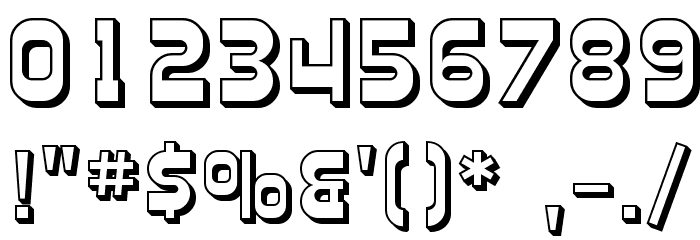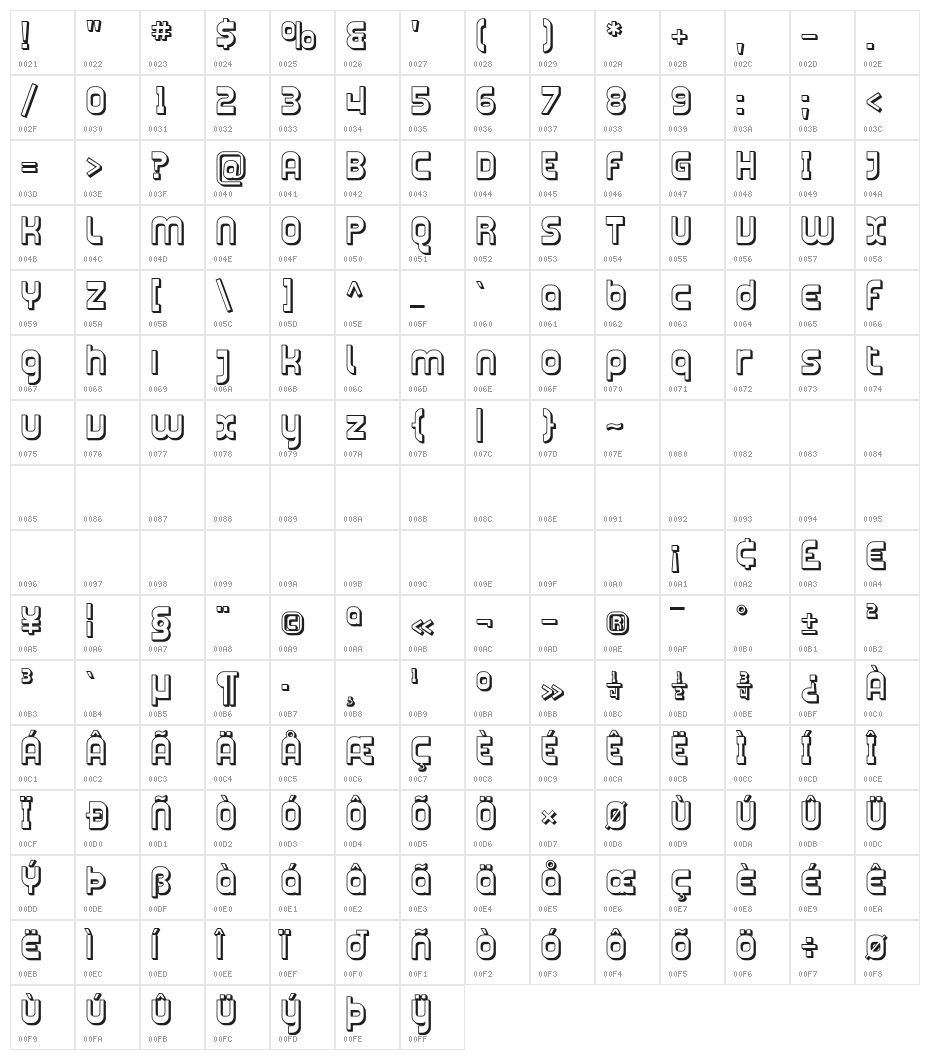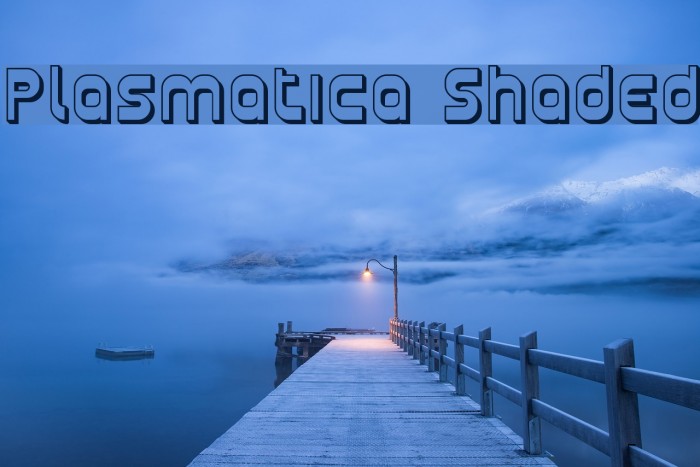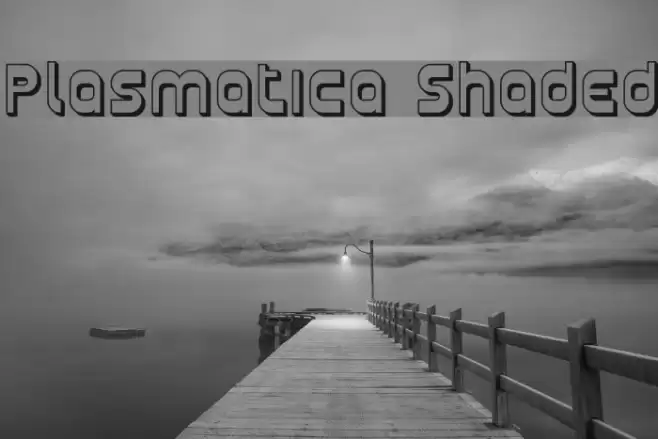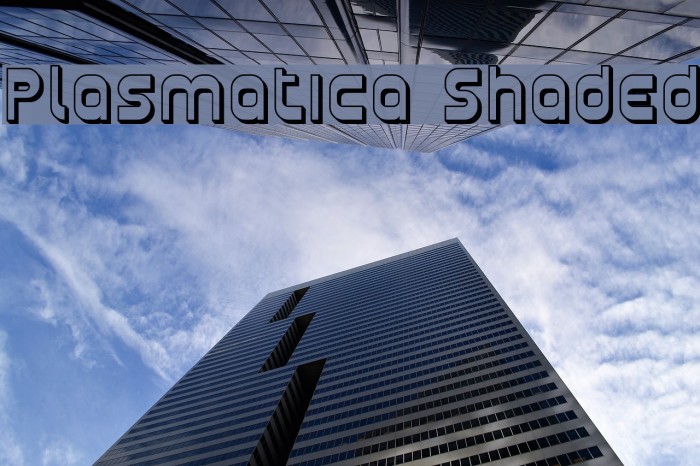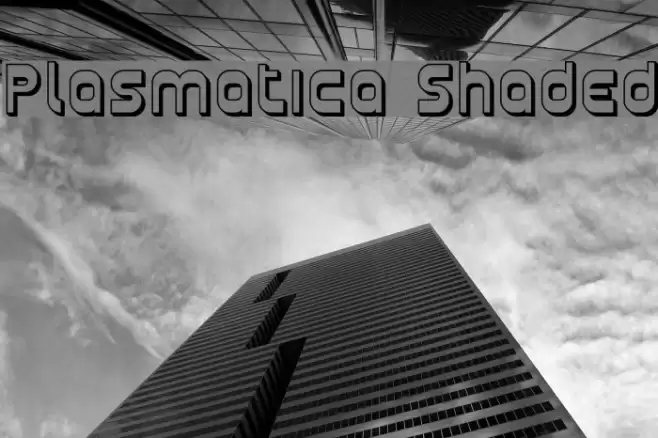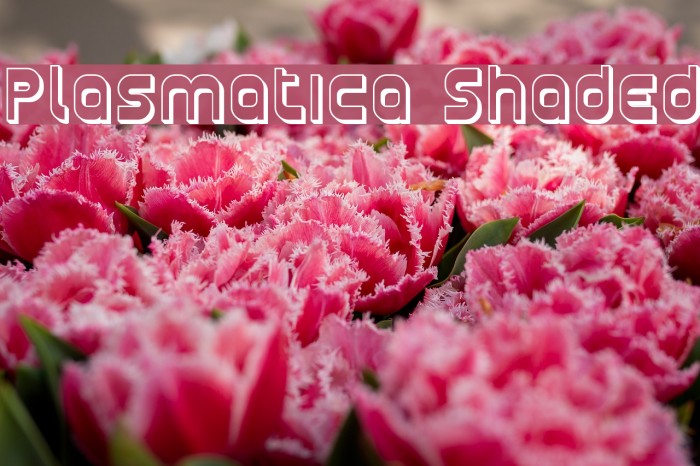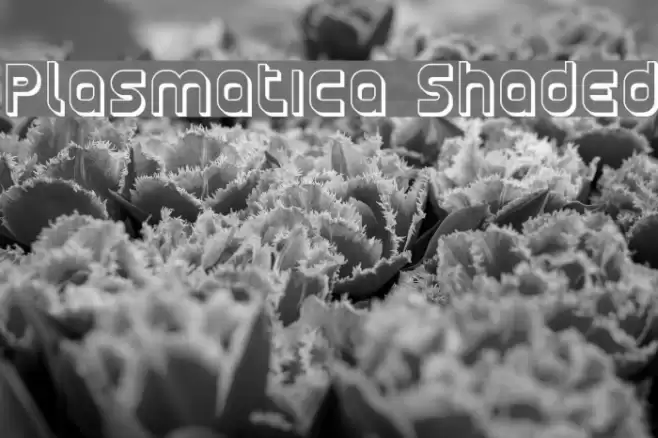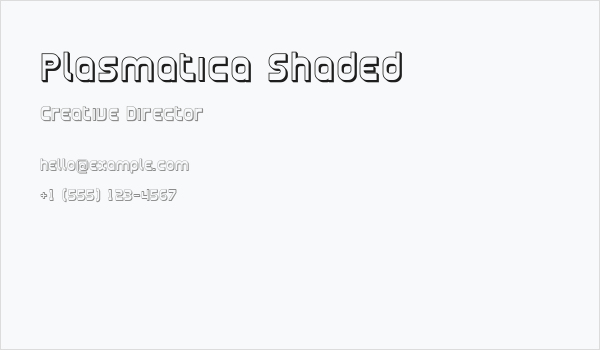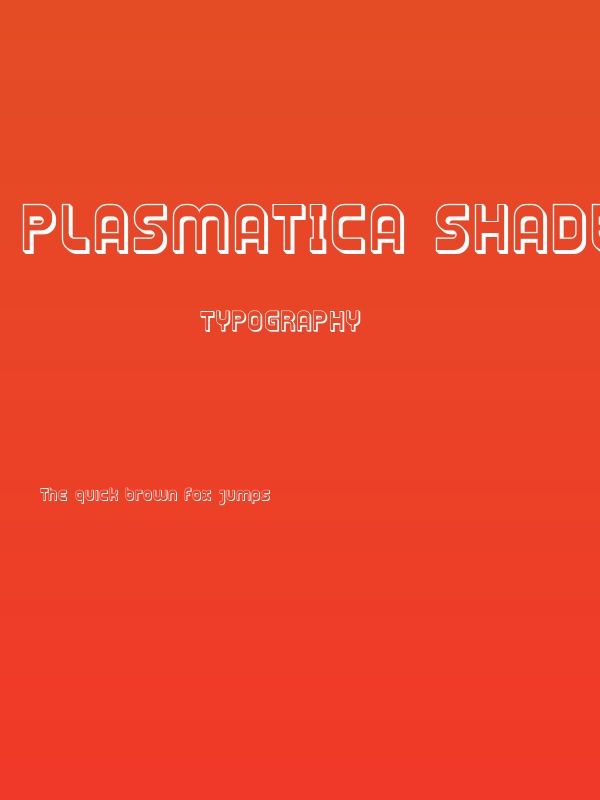
Plasmatica Shaded Font
Plasmatica Shaded Description
This font features a bold, geometric design with a distinct three-dimensional effect created by its shaded outline. The characters are structured with clean, straight lines and rounded edges, giving it a futuristic and tech-inspired appearance. The uppercase and lowercase letters maintain a consistent style, with uniform stroke widths that enhance its readability. The numerals and special characters are designed to match the overall aesthetic, providing a cohesive look across all glyphs. This font is ideal for projects that require a modern and dynamic visual impact.
| Proposed Projects | Ideal for tech branding, video game titles, futuristic posters, and digital media. |